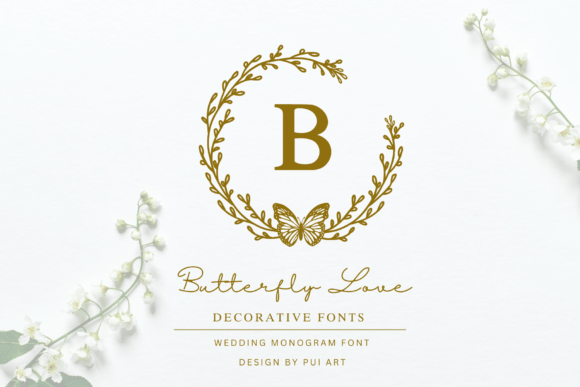
The Magic of Butterfly Love Monogram Font
Have you ever been in the middle of a design project, and suddenly, you’re stuck on finding the perfect font? I recall a wedding invitation project where I struggled to find a font that captured the elegance and charm my client was looking for. That’s when I stumbled upon the Butterfly Love Monogram Font. It was love at first sight! This beautiful font features decorative letters inside a stunning flower and butterfly round frame, making it perfect for special occasions.
A Personal Review of Butterfly Love Monogram Font
What I Love About This Font
- ✨ Elegant and sophisticated design, perfect for wedding invitations, cards, and other celebrations
- ✅ Beautiful decorative letters and intricate details within the flower and butterfly frame
- 🌼 Versatile and can be used for various design projects, from digital to print
- 💕 Adds a touch of charm and whimsy to any design
While I adore this font, there are a few things to keep in mind:
- ⚠️ The font’s intricate design may not be suitable for very small font sizes or low-resolution images
- 🤔 Some characters or glyphs might require manual adjustments for optimal spacing and alignment
The Story Behind Butterfly Love Monogram Font
The Butterfly Love Monogram Font was designed by a talented typographer who drew inspiration from nature and the beauty of butterflies. According to the designer, the font was created to capture the essence of love, joy, and celebration. The intricate details and delicate illustrations were carefully crafted to evoke a sense of wonder and enchantment.
| Font Name | Butterfly Love Monogram Font |
| Author | Pui Art |